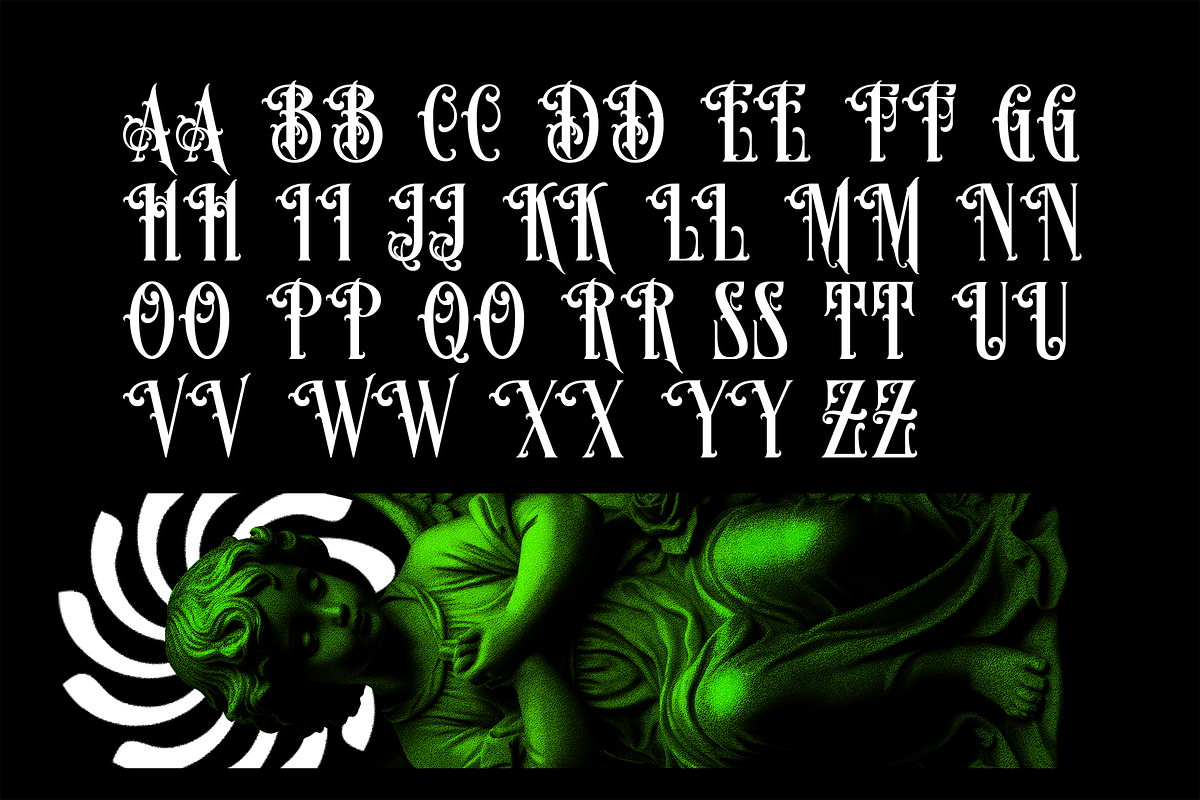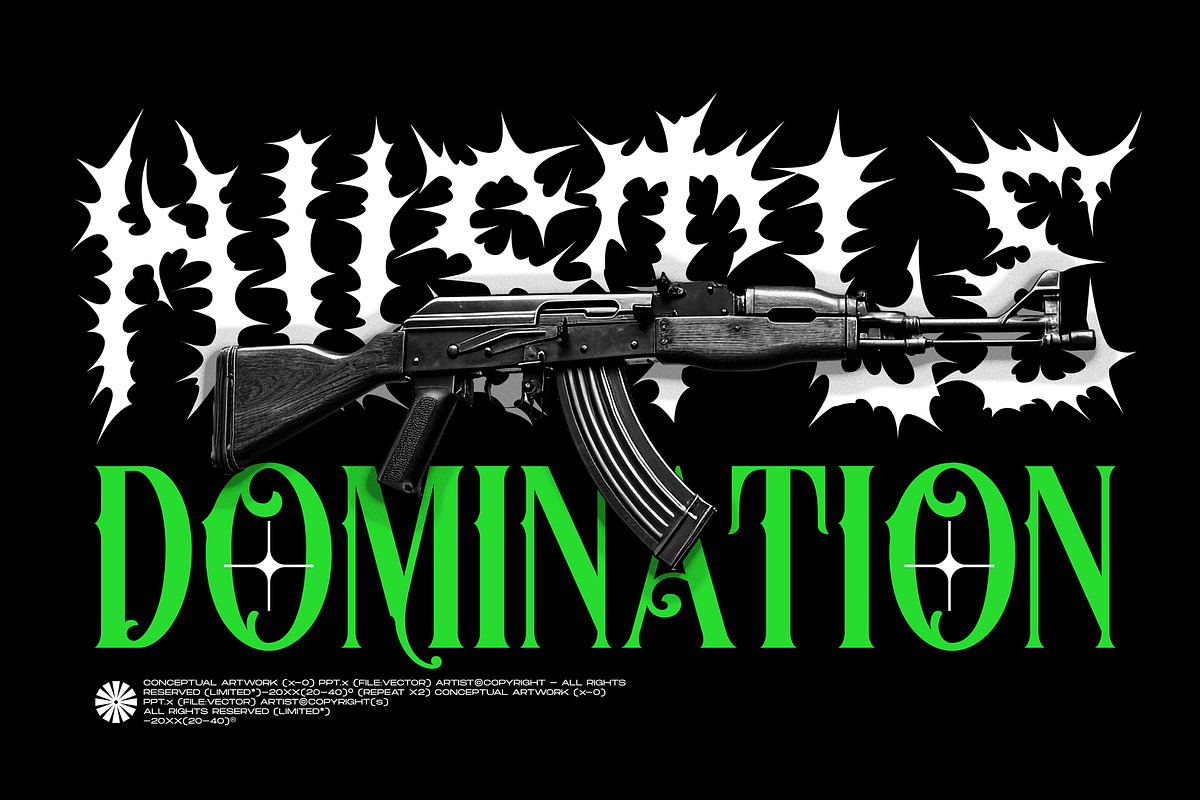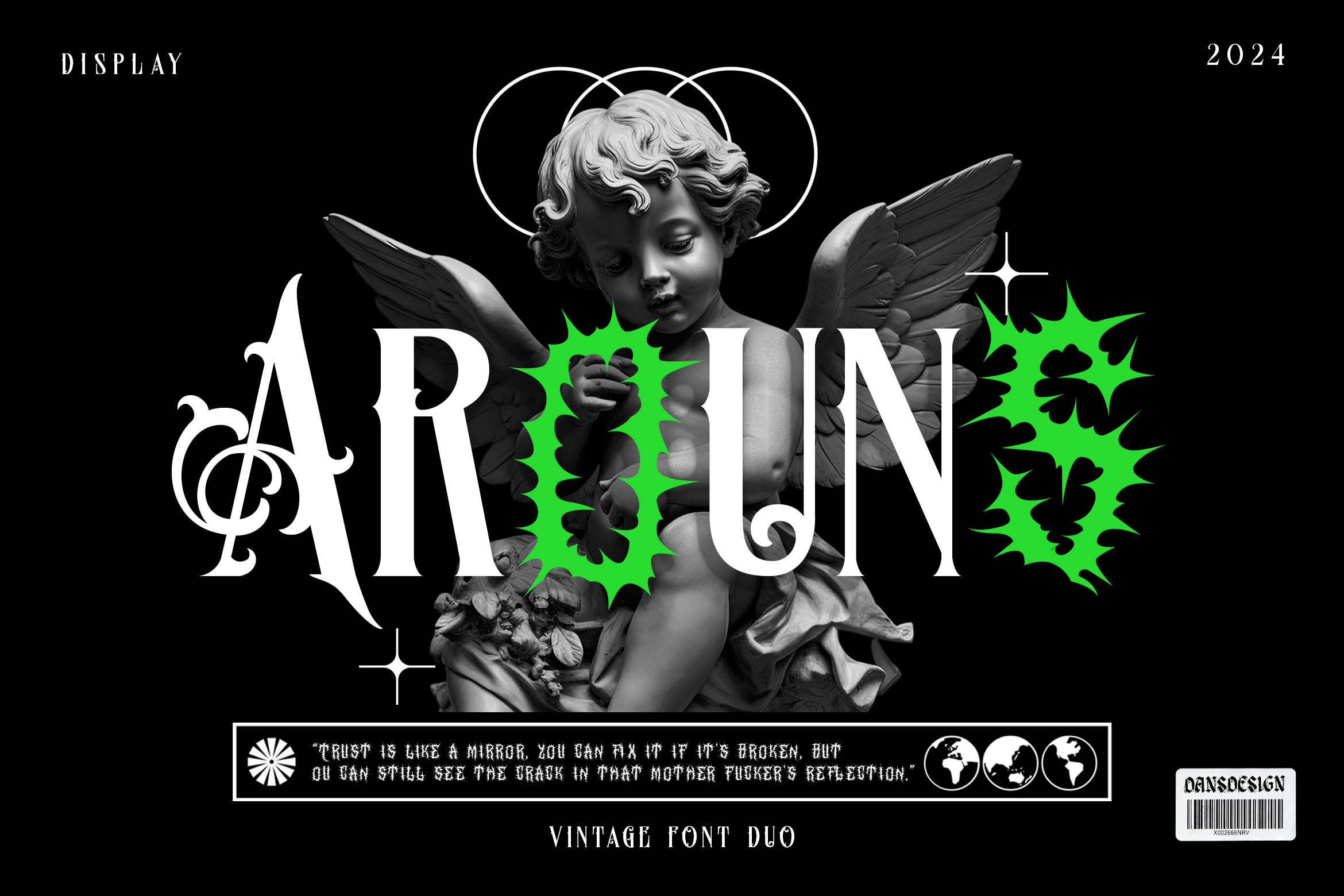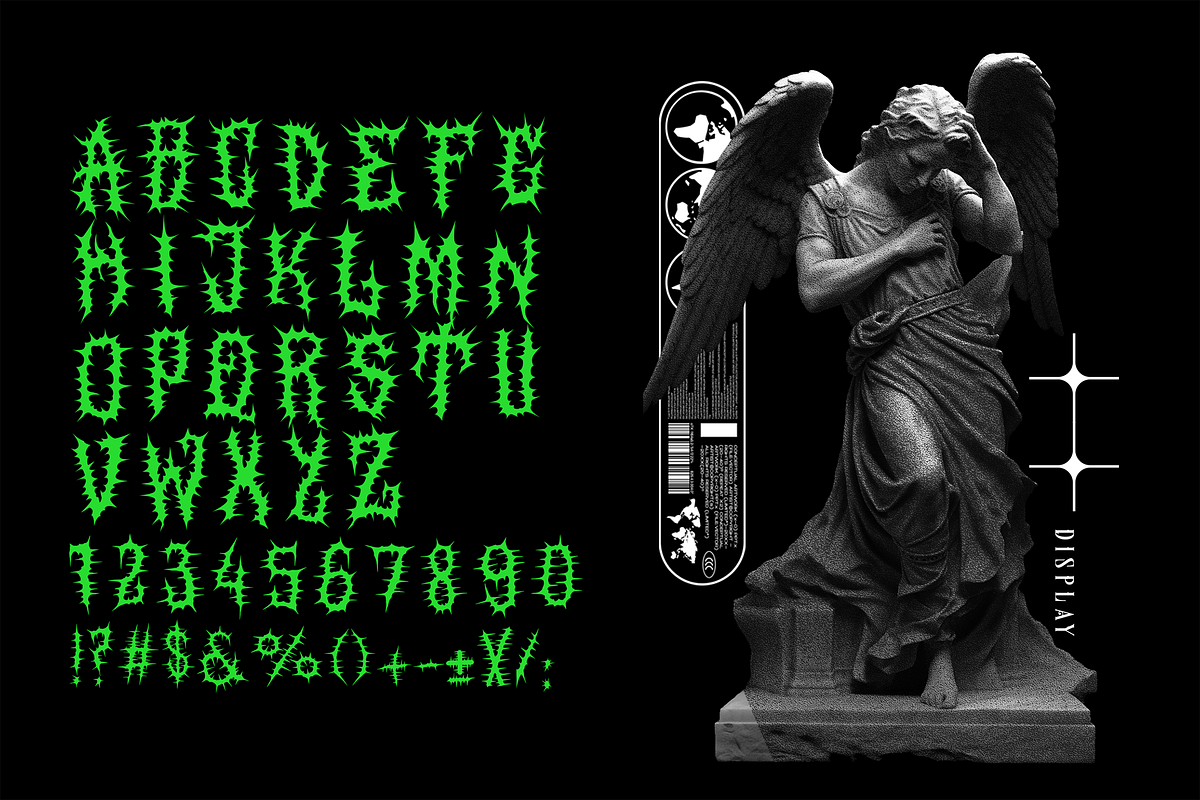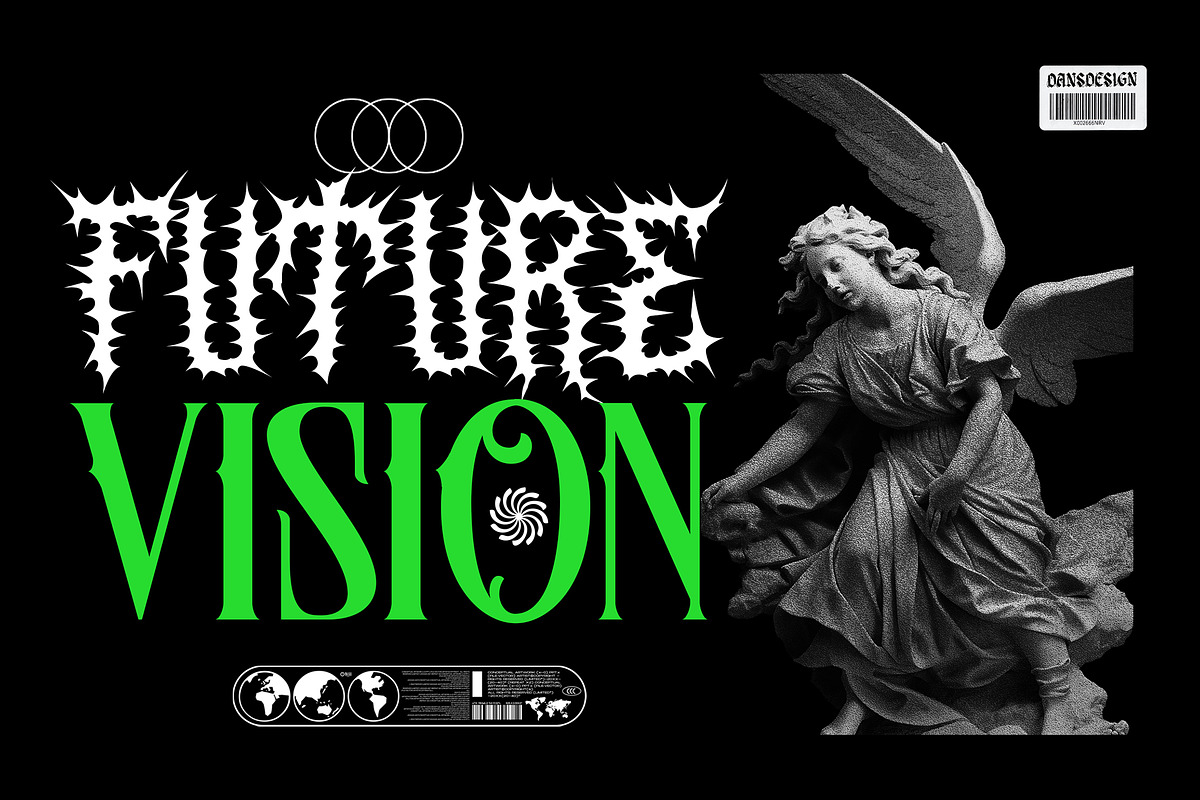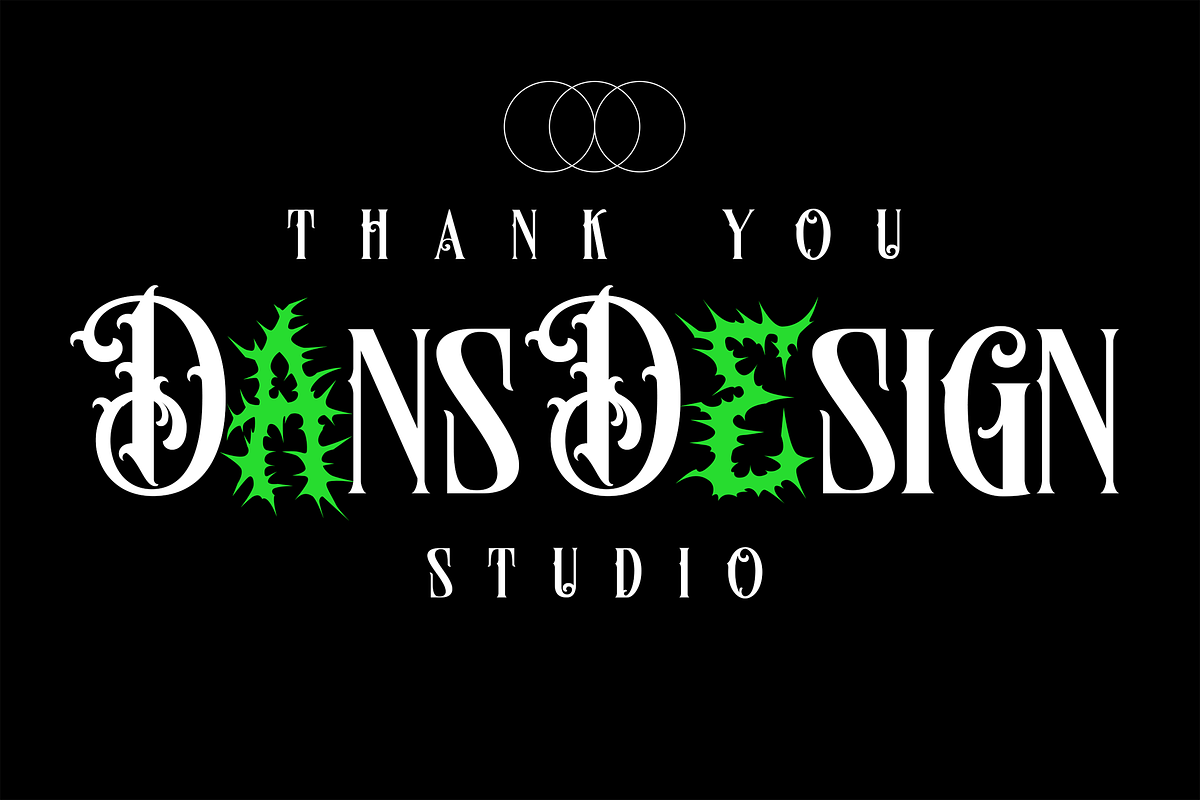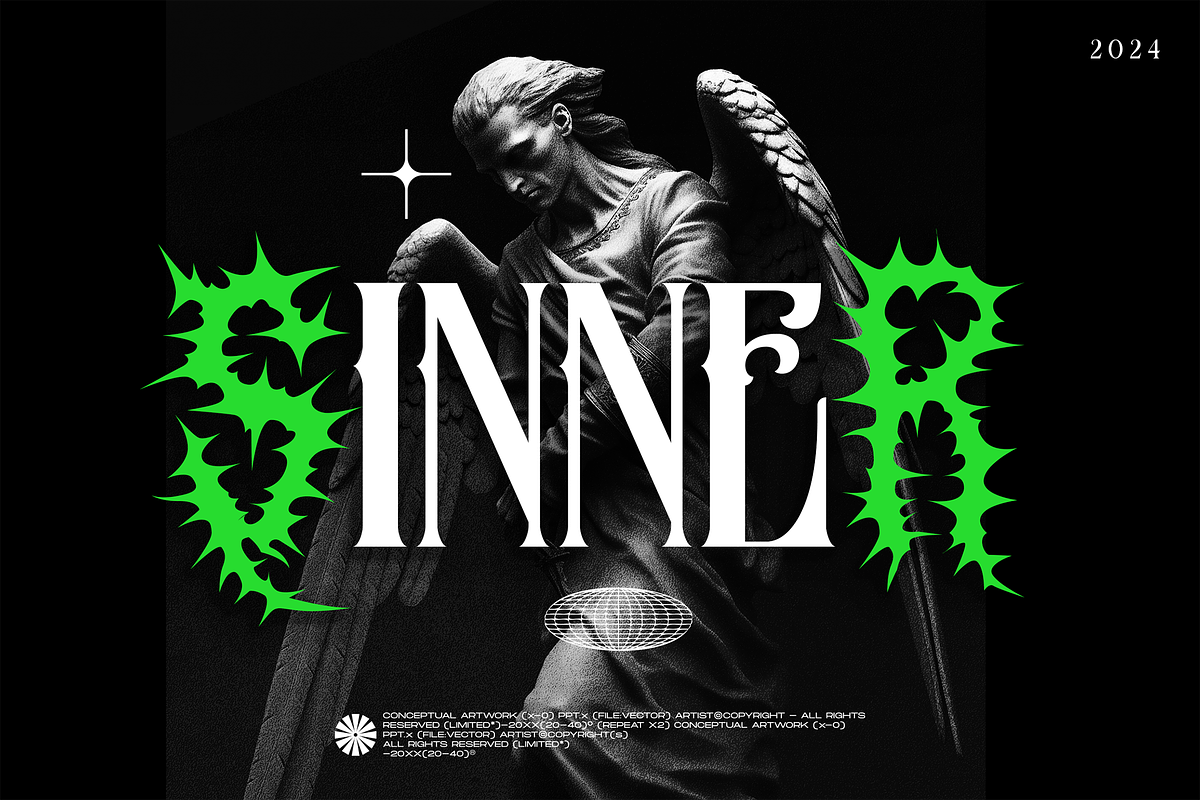
Arounds Blackletter Horror Duo Font
Arounds Blackletter Horror Duo Font a distinct, highly detailed, and chic Blackletter Duo font. It would make a great choice for exquisite retro-urban designs, tattoo business branding, logos, vintage designs, movie, poster, apparel, illustration, and more. Arounds 1/ Arounds2 (OTF/TTF) Arounds 1/ Arounds2 (WEB TT/PS)